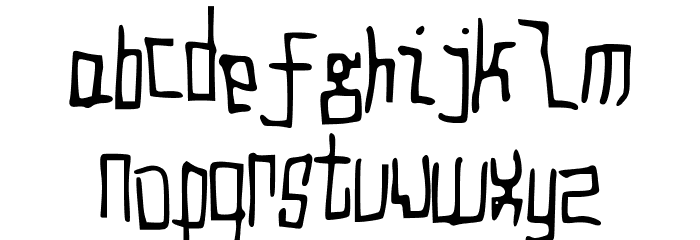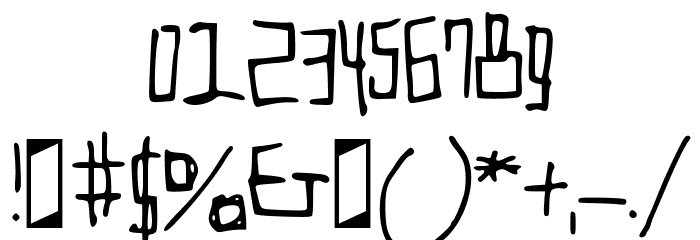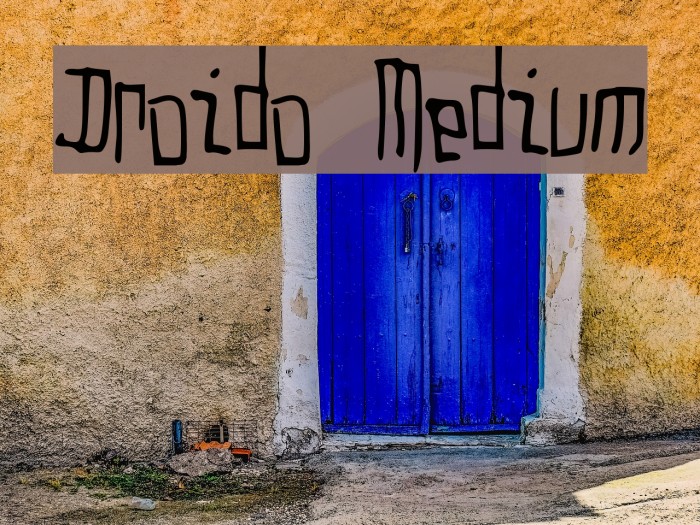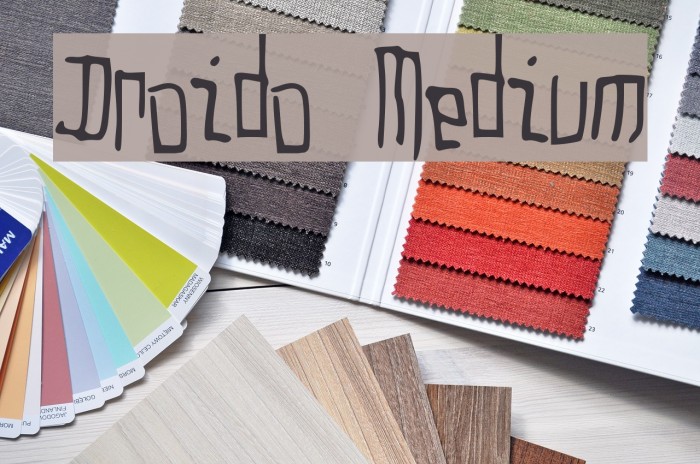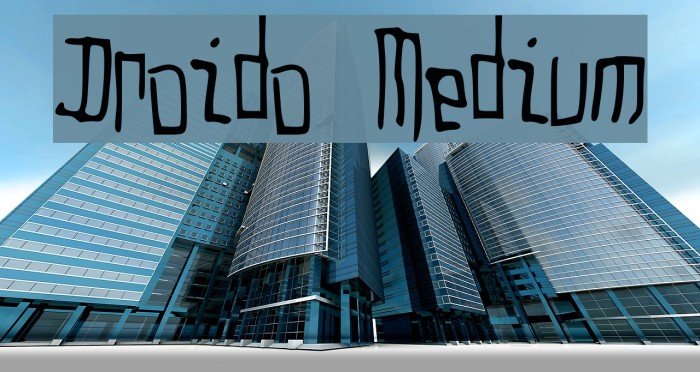
Droido Medium Font
This font features a unique and modern design with a slightly futuristic feel. The characters are elongated and have a hand-drawn appearance, giving them a quirky and artistic vibe. The uppercase letters are tall and narrow, while the lowercase letters maintain a consistent style with a playful twist. The numbers and special characters follow the same design principles, ensuring a cohesive look across all elements. This font's distinctive style makes it stand out, perfect for creative projects that require a touch of individuality.
A modern, hand-drawn font with a quirky, artistic style.
- Proposed Projects: Ideal for creative projects such as posters, album covers, and branding materials that require a unique and artistic touch.